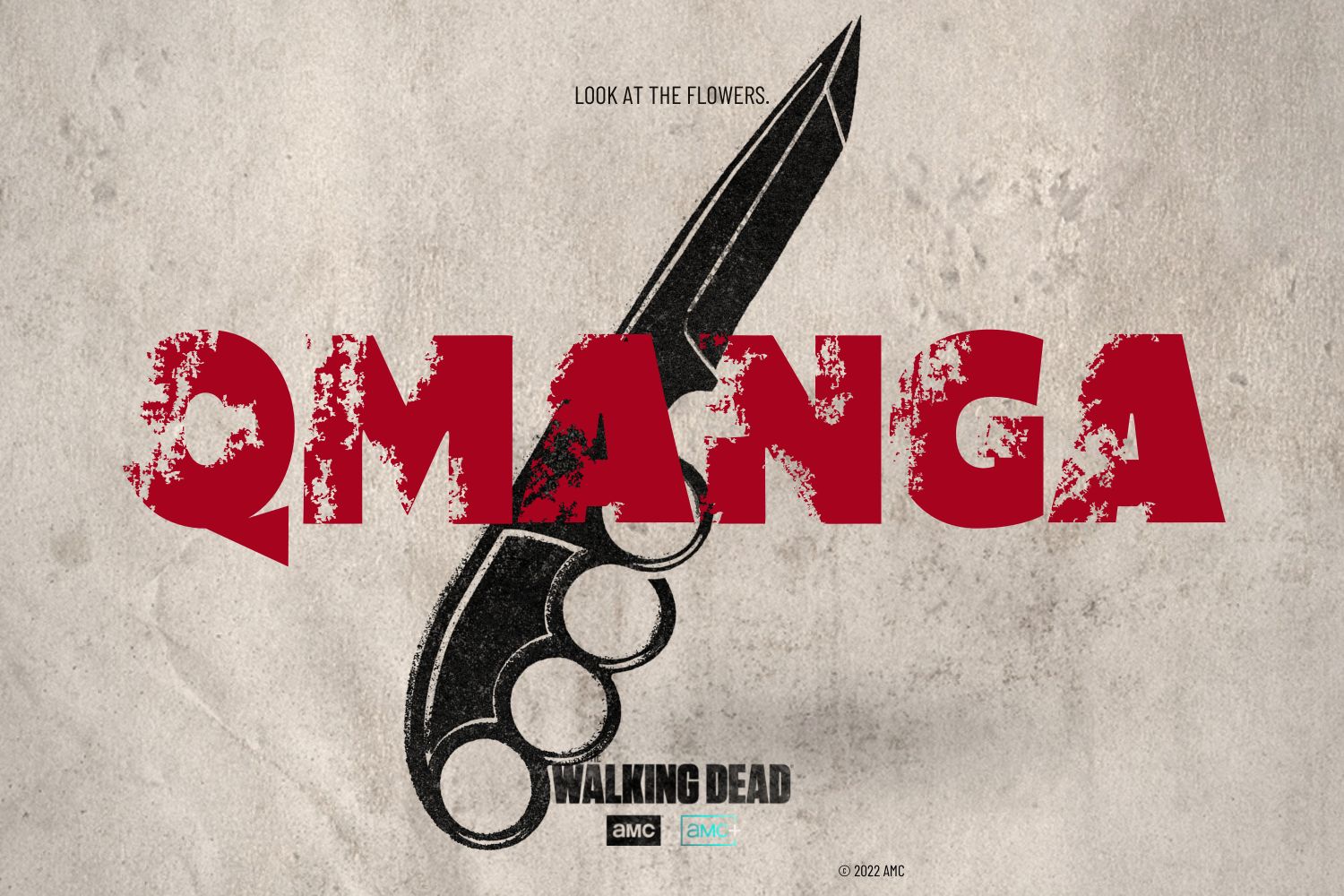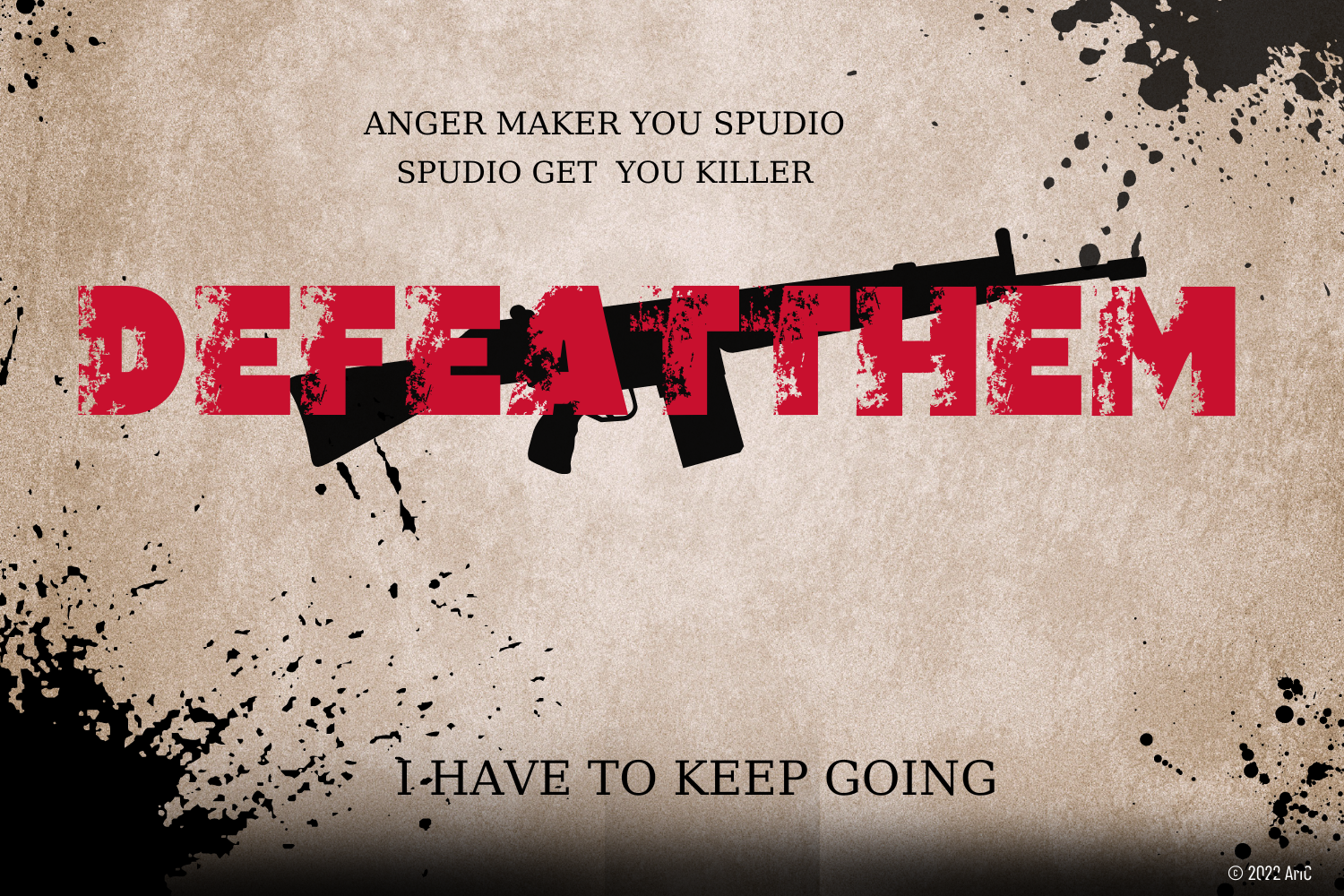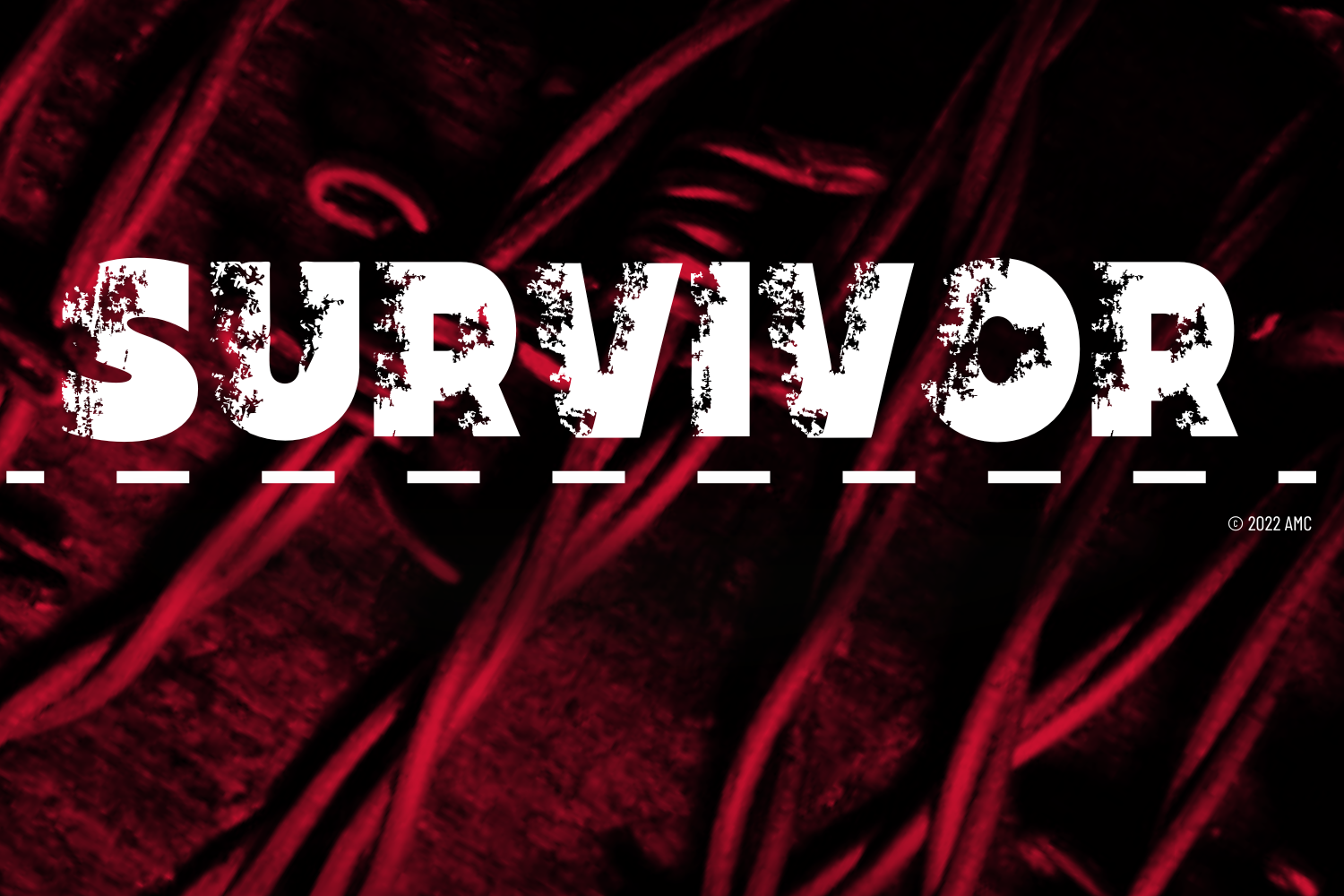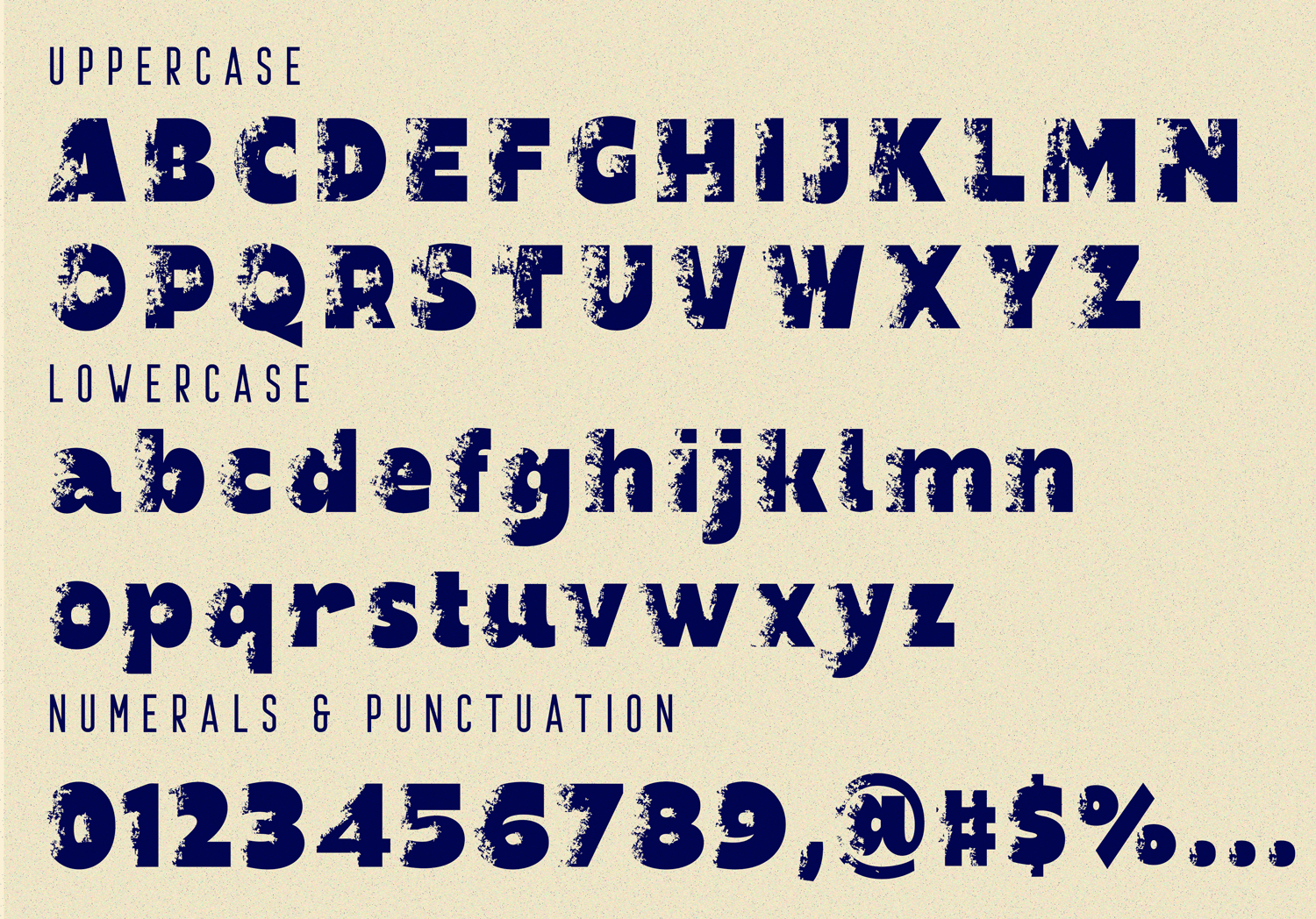
Grunge Font
GRUNGE Font is a grunge fonts are typefaces intended to have dirty look, they are known as filthy fonts and are bold, and they can either be casual or formal in appearance. It’s a strong modern sans serif display font. The style of this font are strong, modern, grunge, techno, futuristic, manly, sporty etc. Great for logo, brandings, headlines etc. Event font is a grungy font with white patches in the letters.